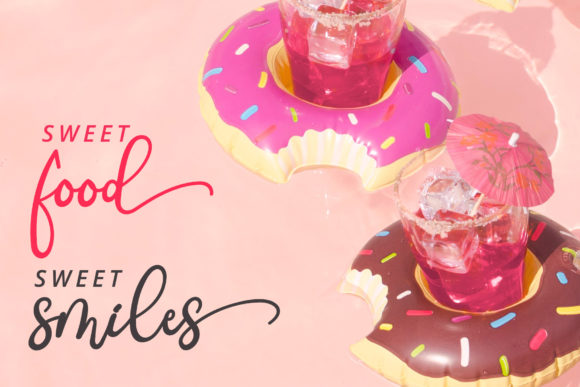
Clara Signature Font
db-ku.com - Script & Handwritten -- Clara Signature is jolly and sweet handwritten font. This font in incredibly flexible and fits a wide ranges of design projects, be it wedding invitations, branding, logos, social media quotes, and so much more. This font is PUA encoded which means you can access all of the glyphs and swashes with ease!